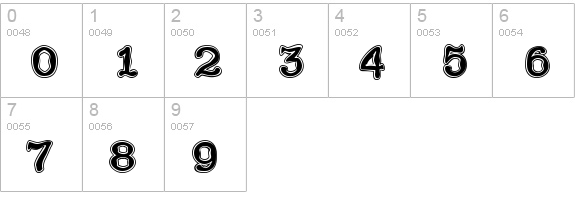
HippityDippityInline Font Details
Introducing HippityDippityInline font, a whimsical and playful typeface that adds a touch of fun to any design project. With its bouncy letterforms and quirky inline detailing, this font exudes a sense of charm and creativity. HippityDippityInline is the perfect choice for projects that require a lighthearted and energetic feel, such as children's books, greeting cards, party invitations, and more. Its unique style is sure to make your designs stand out and bring a smile to your audience's faces. Best of all, HippityDippityInline font is completely free to download at FontsMarket.com. So go ahead and add a dose of playfulness to your next project with this delightful font.